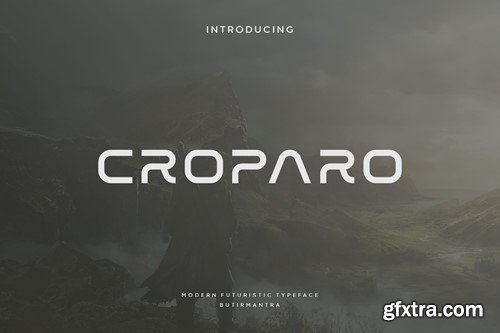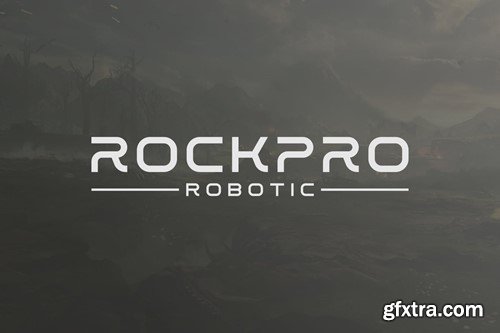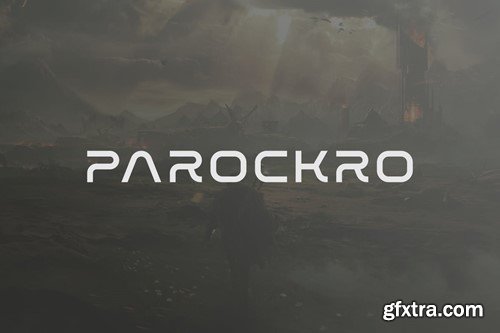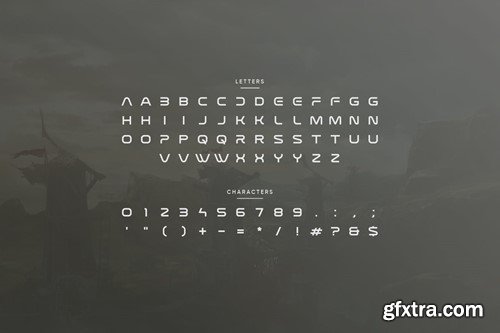
Croparo - Futuristic Cyber Font
Croparo is a futuristic font that we designed with a unique and original touch for various types of future designs. This cool font comes with all-caps letter, number & symbols. This strong and sophisticated font is very suitable for logo, headline, typography, poster, magazine, brochure, packaging, website and much more for your design needs, it will make your designs even cooler and stand out. File Included : Thanks for subscribe and good luck with your project!